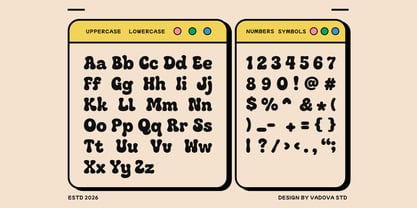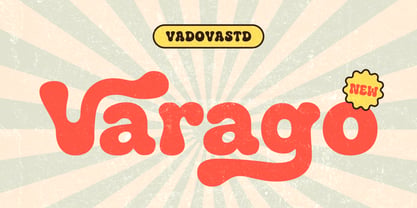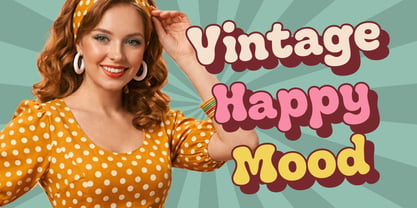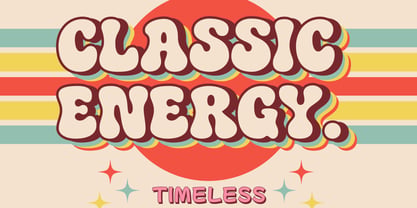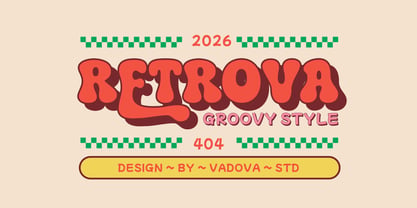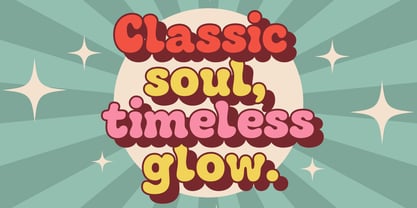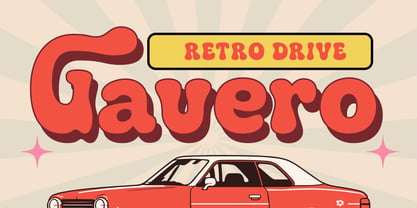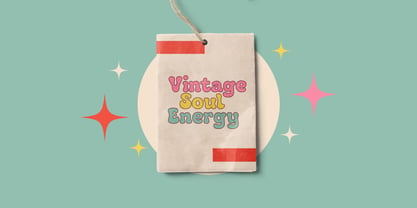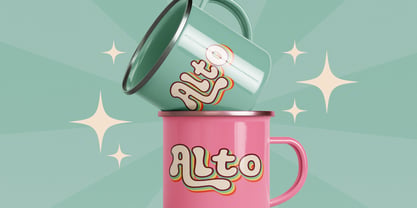
Varago
Varago is a bold retro bubble font inspired by the playful typography of the 1970s. Designed with soft curves, chunky letterforms, and a nostalgic groovy vibe, this typeface instantly brings a fun vintage atmosphere to any design project. This font package includes a full character set consisting of uppercase letters, lowercase letters, numbers, punctuation, and symbols. Varago is perfect for creative projects that require a bold retro character and nostalgic aesthetic. Its groovy bubble shapes make it ideal for vintage poster design, retro branding, music artwork, festival graphics, merchandise, packaging, and social media visuals. Designers looking to capture the fun and expressive typography of the 1970s will find Varago especially suitable for eye-catching headlines and logo designs.